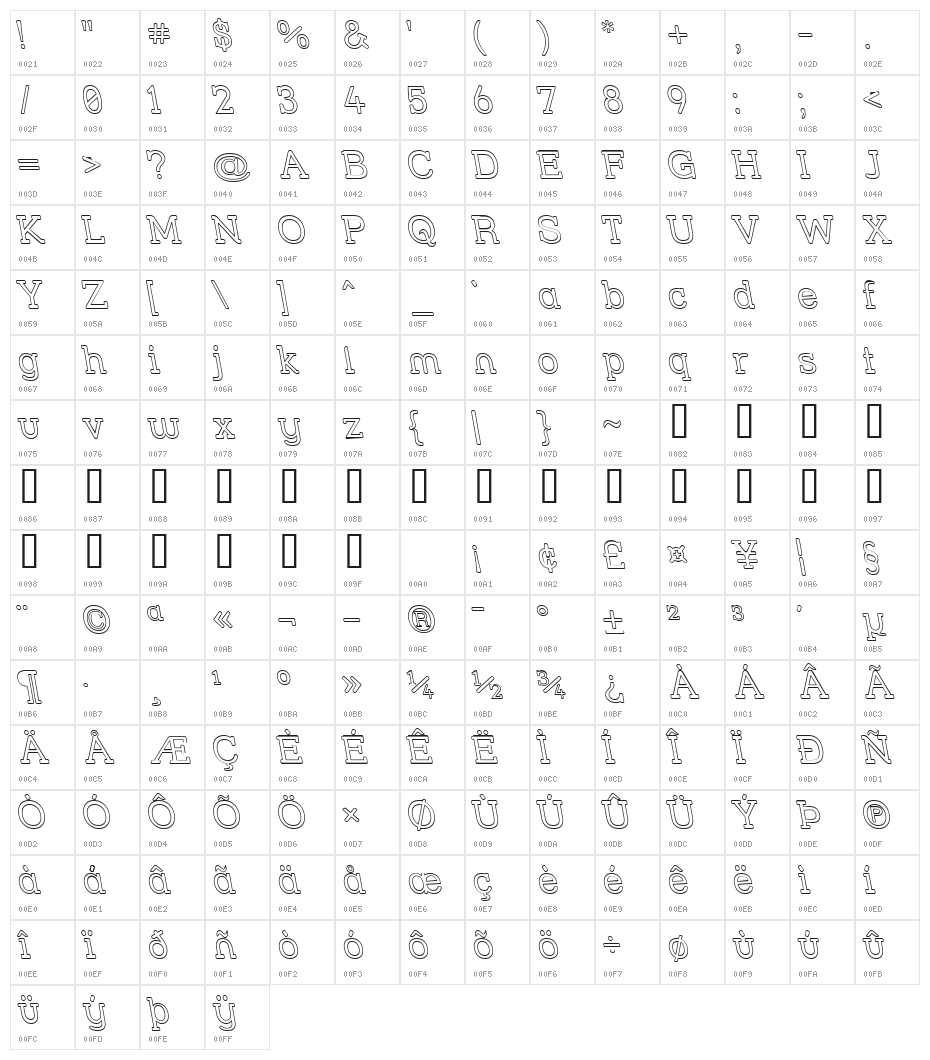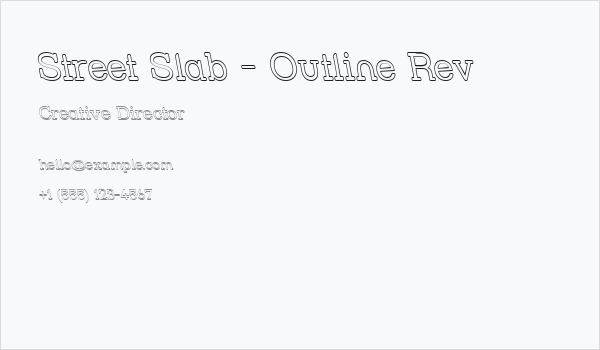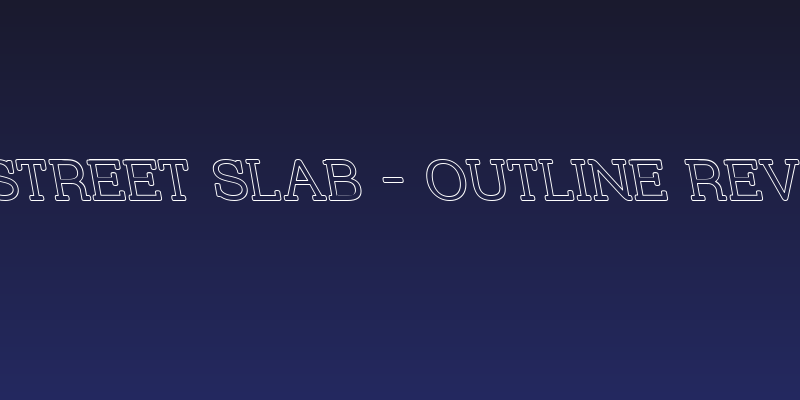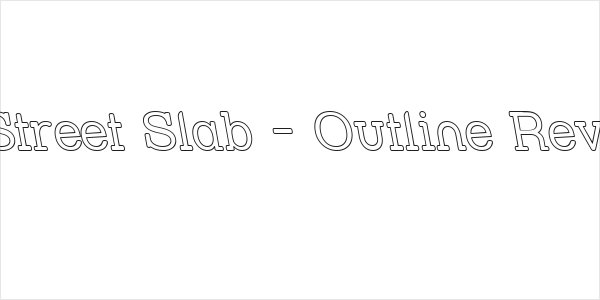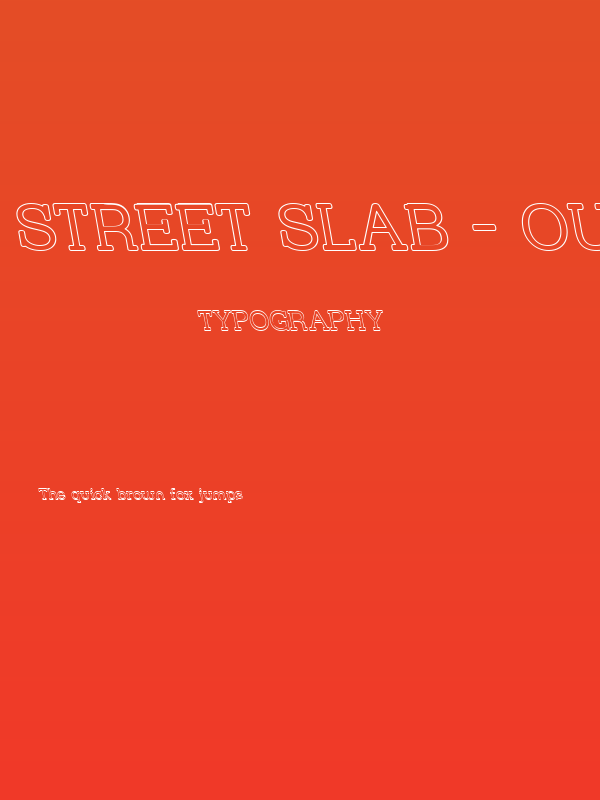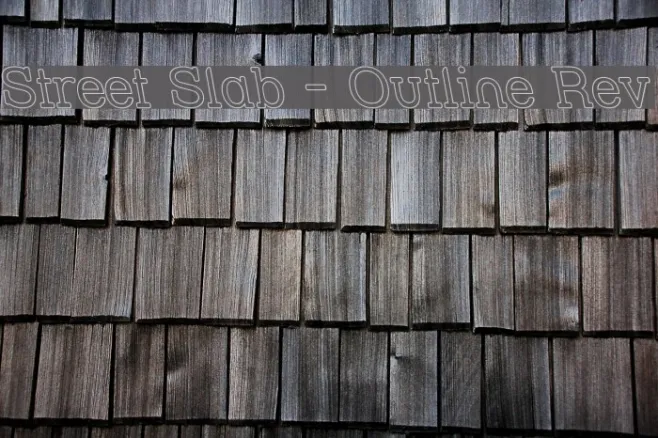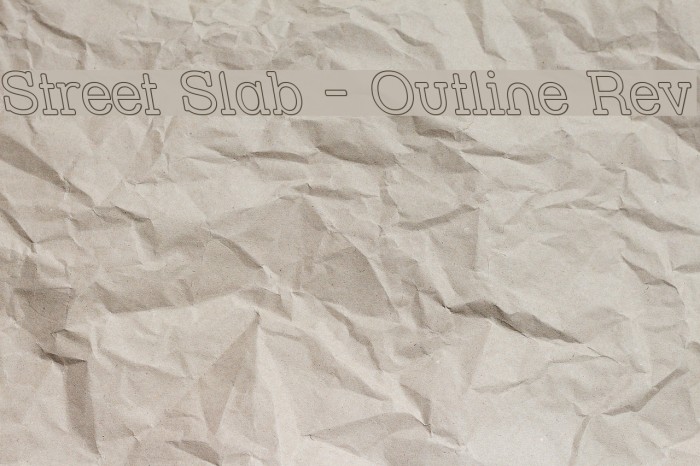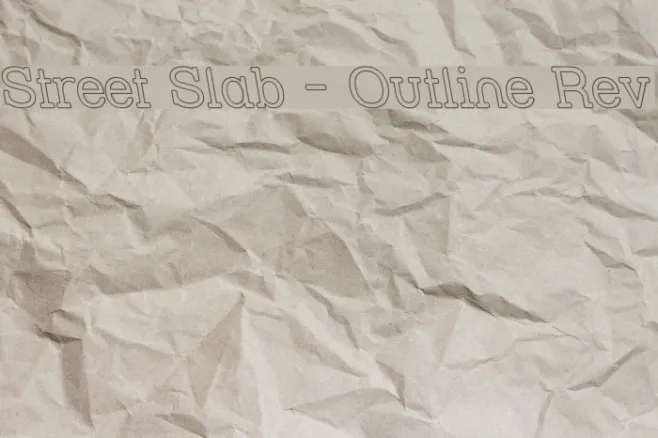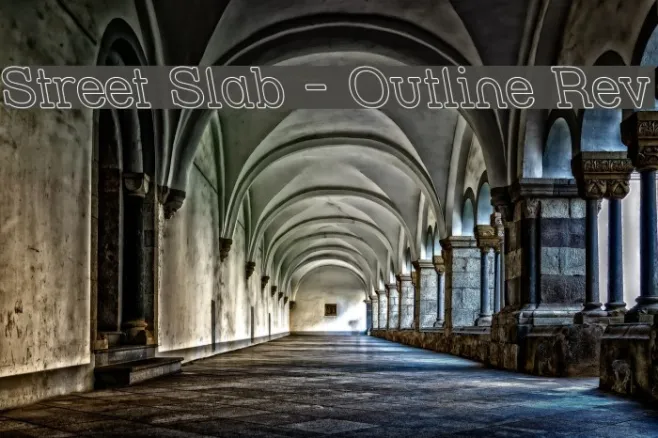
Street Slab - Outline Rev Font
Street Slab - Outline Rev Description
This font features a bold, slab serif style with a distinctive outline effect. The characters are well-defined with a uniform thickness, creating a strong visual impact. The uppercase and lowercase letters maintain a consistent design, with the serifs adding a touch of classic elegance. The numbers and special characters are equally bold and clear, making them suitable for various design purposes. The outline style gives the font a modern twist, making it stand out in both digital and print media. Its structured appearance is ideal for projects that require a combination of readability and aesthetic appeal.
| Proposed Projects | Ideal for headlines, posters, branding, and advertising materials where a strong visual presence is needed. |